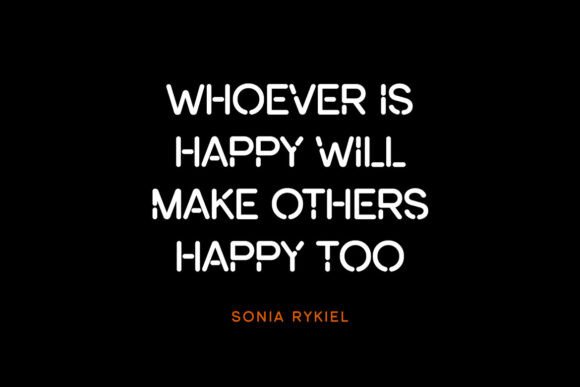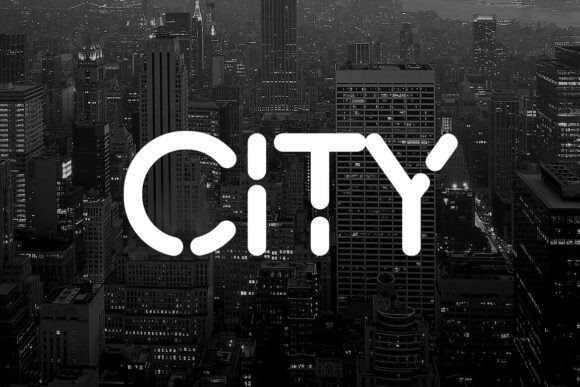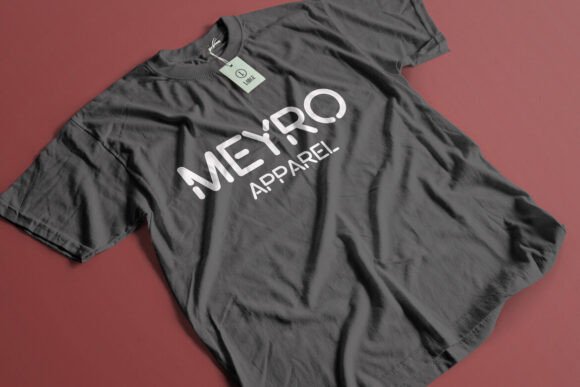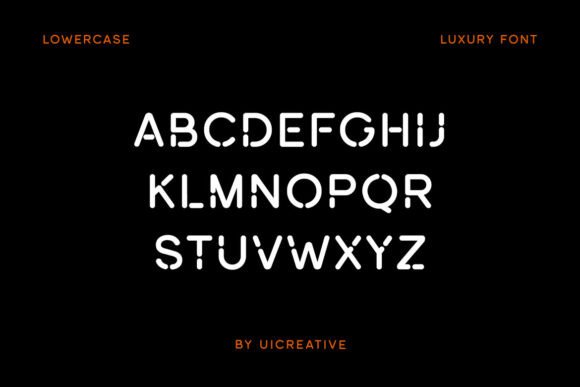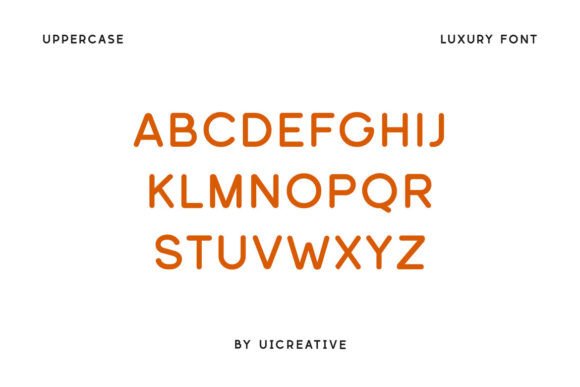
The Galivanted Font: Elevate Your Designs with Elegance and Style
Have you ever been in the middle of a design project, and suddenly, you’re stuck on finding the perfect font? I recall a recent experience where I was working on a branding project for a fashion client, and I just couldn’t seem to find a font that captured the essence of their brand – a mix of elegance, style, and a touch of playfulness. That’s when I stumbled upon the Galivanted font, and it completely transformed my design.
A Personal Review: What I Love About Galivanted
The Galivanted font, a modern display font with a stencil sans serif design, has quickly become one of my go-to fonts for a variety of projects. Here’s what I love about it:
- ✨ Elegant and Stylish: Galivanted exudes a sense of sophistication and style, making it perfect for high-end branding, fashion editorial designs, and luxury product packaging.
- ✅ Versatile: This font is incredibly versatile and can be used for a wide range of projects, including signatures, stationery, logos, wedding designs, typography quotes, magazine or book covers, website headers, and more.
- 💡 Masculine and Feminine Qualities: Galivanted beautifully balances both masculine and feminine qualities, making it an excellent choice for fashion-related branding or editorial designs that require a touch of elegance and sophistication.
While Galivanted is an exceptional font, there are a few minor quirks to be aware of:
- 🤔 Legibility at Small Sizes: As with many stencil fonts, Galivanted may lose some legibility when used at very small sizes. It’s best to use it at larger sizes (20px and above) to ensure optimal readability.
- ⚠️ Limited Use for Body Text: Due to its design and stencil nature, Galivanted is not ideal for body text or lengthy paragraphs. It’s best suited for headlines, titles, and short phrases.
The Galivanted font was inspired by the works of renowned designers who sought to combine modernity with classic elegance. While the actual designer remains anonymous, their vision was to create a font that would seamlessly blend into both digital and print designs, offering a fresh take on stencil sans serif fonts. The result is a font that feels both contemporary and timeless.
| Author | uicreativenet |
| What type of projects is Galivanted best suited for? | Galivanted is ideal for a wide variety of projects, including signatures, stationery, logos, wedding designs, typography quotes, magazine or book covers, website headers, branding, and more. |
| Is Galivanted suitable for body text? | No, Galivanted is best used for headlines, titles, and short phrases. It’s not ideal for lengthy body text due to its stencil design and potential legibility issues at small sizes. |